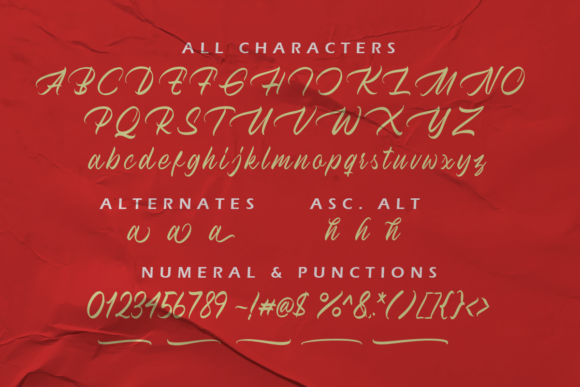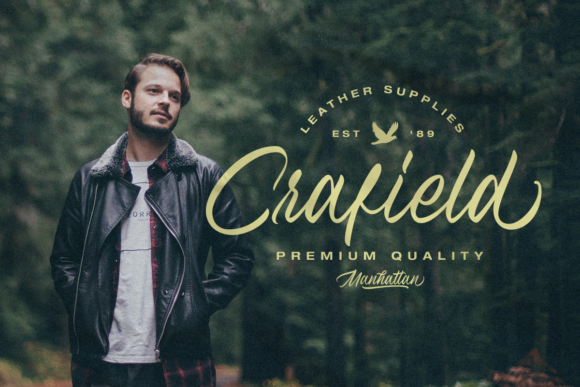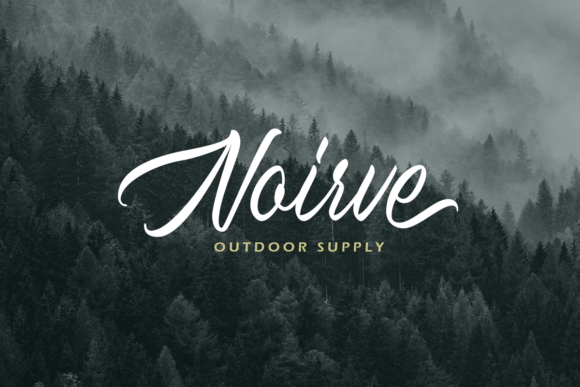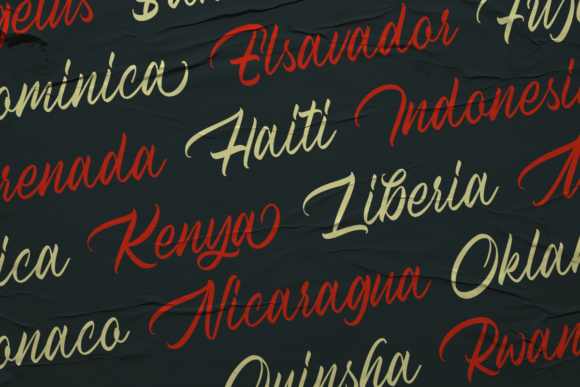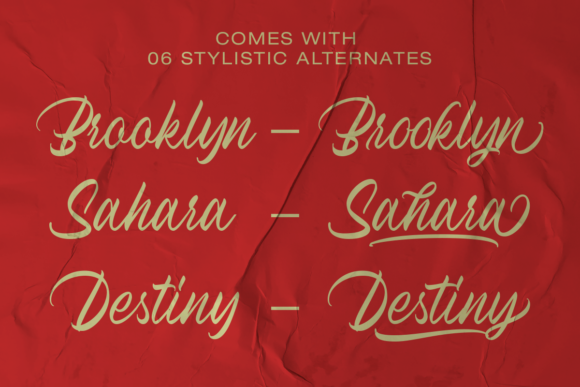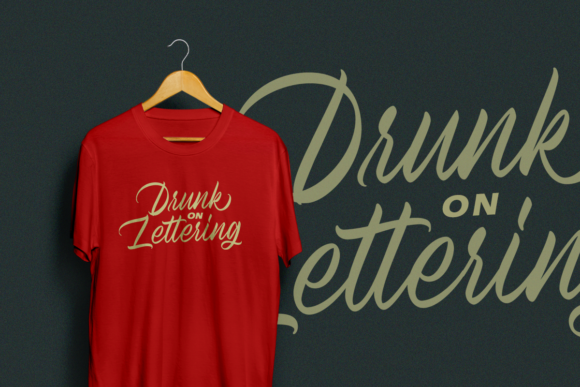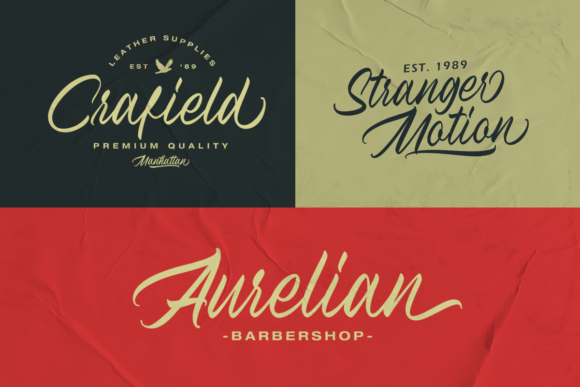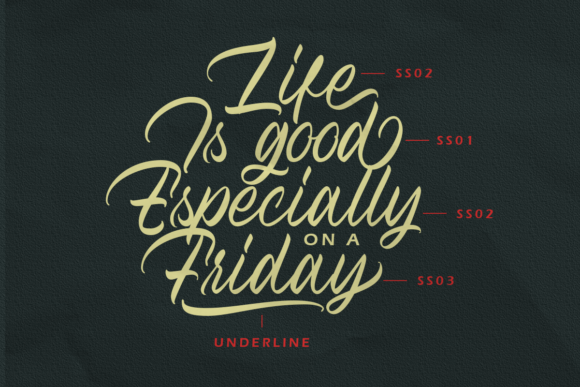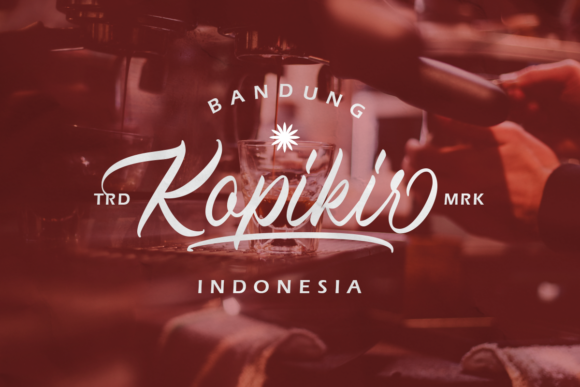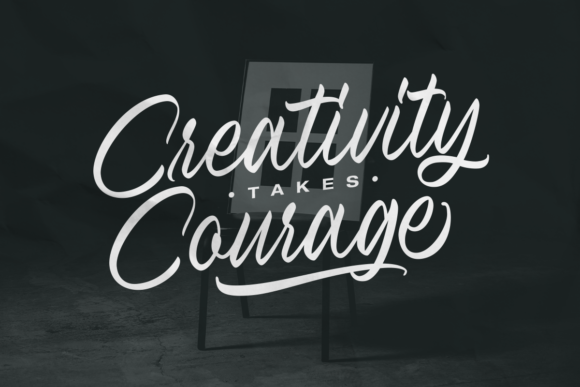
Holystone Font
About Holystone Font
Holystone is a beautiful script font with a friendly feel! It will elevate a wide range of design projects to the highest level, be it branding, headings, wedding designs, invitations, signatures, logos, labels, and much more!